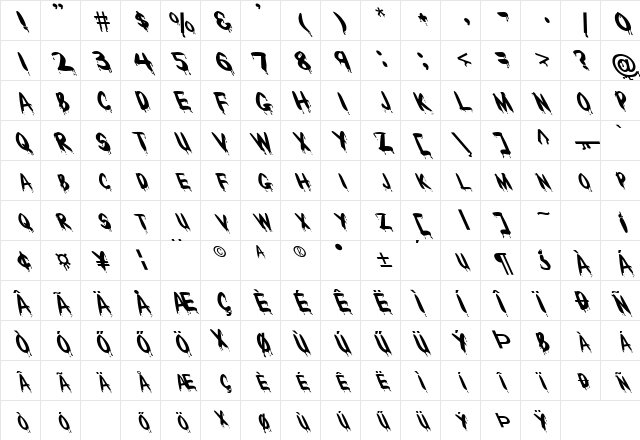
UNIQUE29-LEFTYHU Normal A Free Font
UNIQUE29-LEFTYHU Normal A
Style: Normal A
Complete UNIQUE29-LEFTYHU Normal A glyph index. Displaying only characters natively supported by UNIQUE29-LEFTYHU Normal A font.
Design Context for UNIQUE29-LEFTYHU
UNIQUE29-LEFTYHU is a composed and adaptable typeface that performs quietly and consistently across a wide range of design contexts.